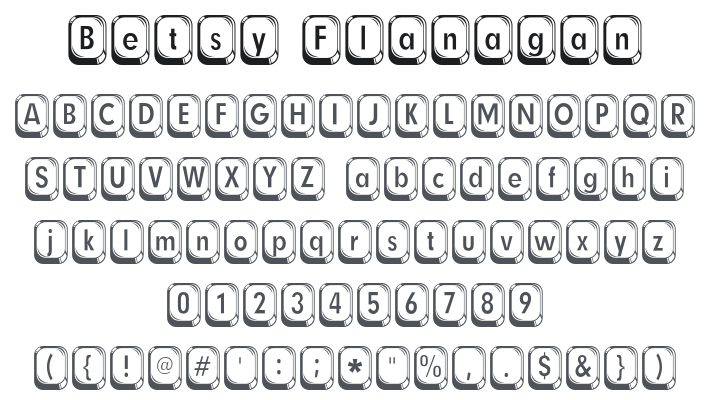
Betsy Flanagan Font Family
About Betsy Flanagan
Betsy Flanagan is a bold display typeface where every character sits inside a rounded square with a 3D shadow effect, making each letter look exactly like a vintage computer keyboard key. It comes in two variants — standard and one with control characters like Shift, Enter, and Escape. Perfect for tech-themed designs, retro UI mockups, keyboard shortcut guides, and nostalgic computing aesthetics.